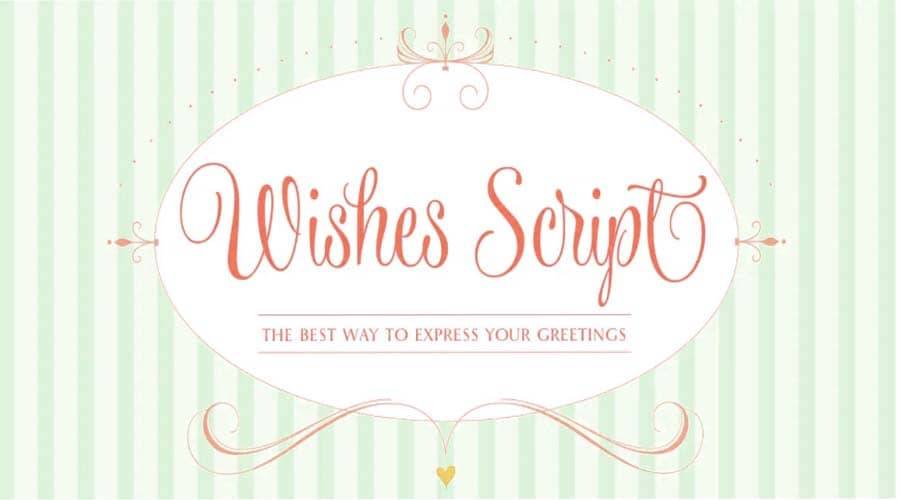
Wish Script Font Free
Wish Script font is a free calligraphy font family made by Sabrina Mariela Lopez and released by Typesenses on November 27, 2017.
Wish Script is a really elegant and eye-catching typeface with 18 variants.Up to 14 OpenType characteristics are supported by this curved typeface.The flowing curves perform well in both tiny and large formats for display and text styles. This lovely free script font has wavy brushstrokes that are reminiscent of nature. Wish Script font has more than 990 glyphs and 197 ornaments. As a result, finding a typeface with this many functions is extremely unusual. Wish Script has a typeface that looked identical to Mulberry Script Font, Samantha Font, Gratitude Font, and Grandezza Font.
This typeface can be used in any type of design project. This lovely typeface will enhance the beauty of your greeting cards, wedding invites, or birthday invitations. It’s also suitable for posters, publications, fashion design, and exceptional packaging. If you’re a YouTuber, you may use this typeface to enhance your thumbnail. This font is indeed ideal for logo creation.